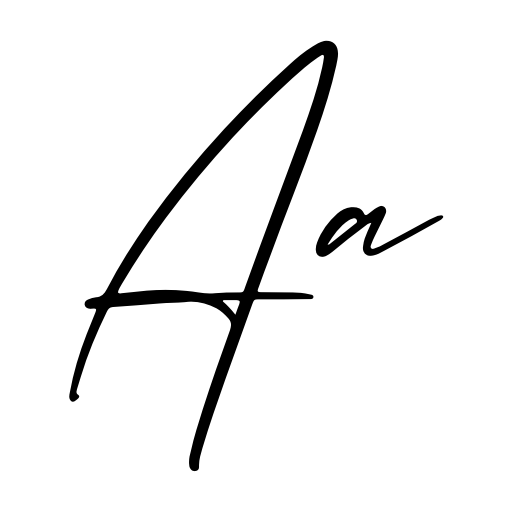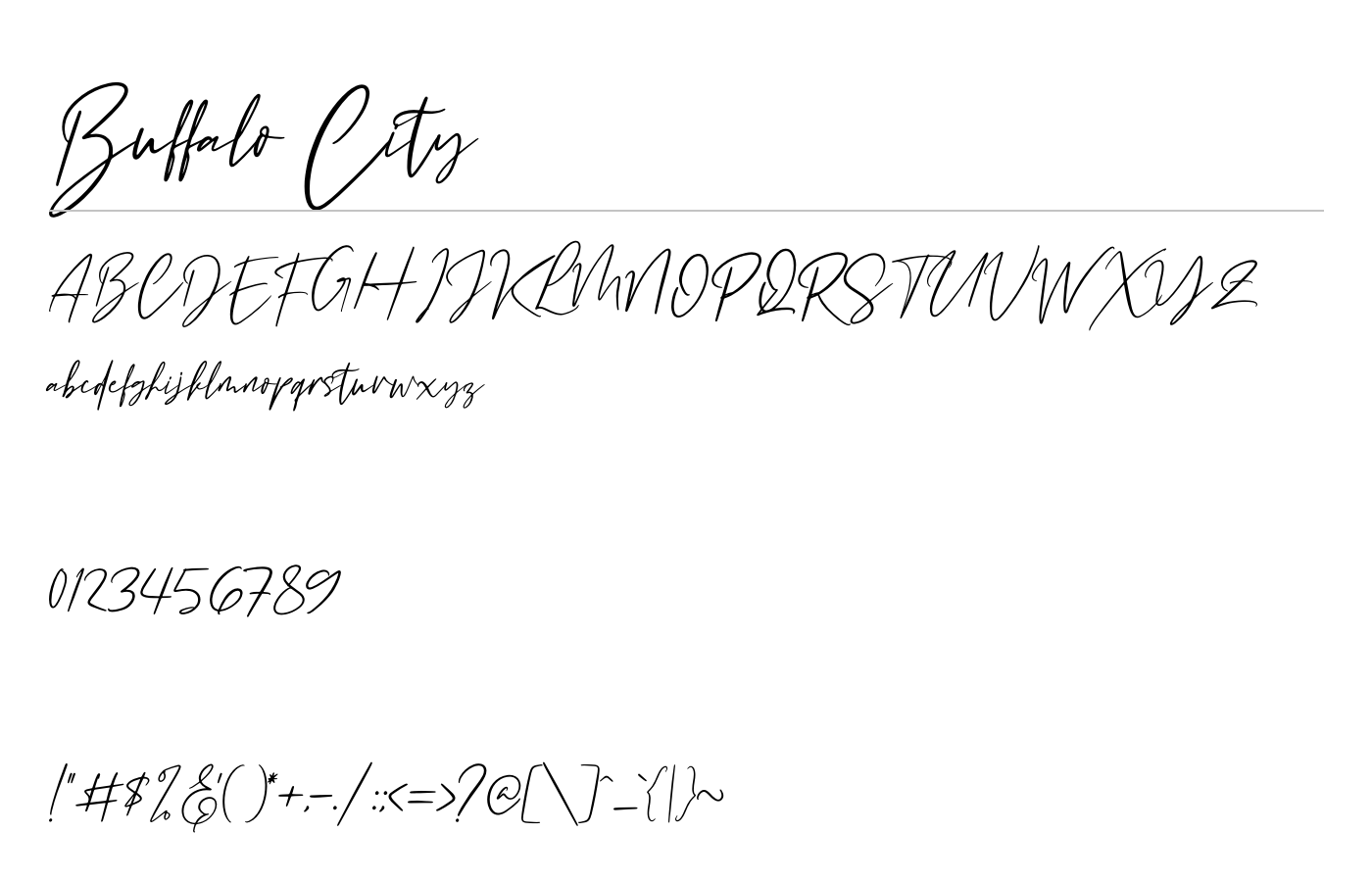
Buffalo City is a delicate and elegant script font featuring slender, flowing letterforms with a natural, hand-drawn feel. Its light weight and graceful curves make it ideal for stylish branding, invitations, or feminine design projects where a personal, sophisticated touch is desired. This font works beautifully in logos, headlines, and decorative text where a modern, artistic vibe is key.
Buffalo City Font